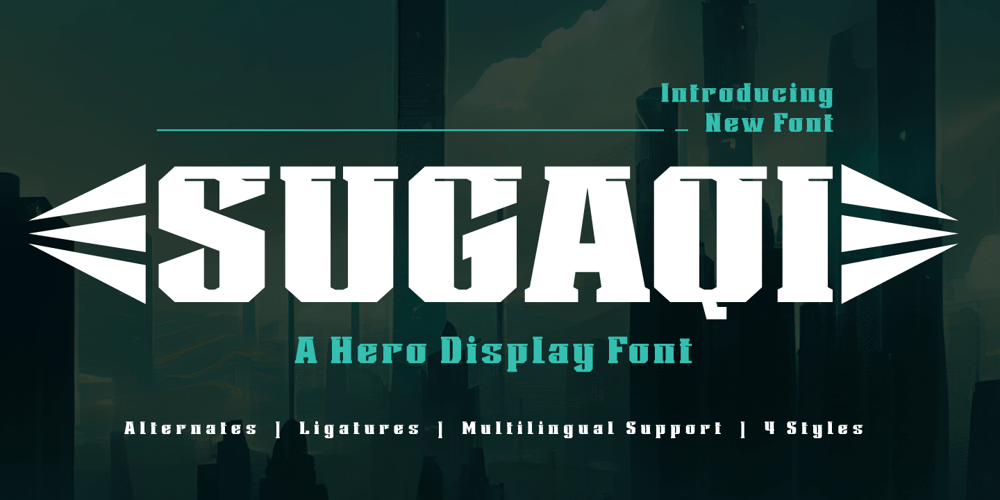
Sugaqi Font Family was designed by Rozikan and published by Twinletter. Sugaqi contains 4 styles and family package options. Sugaqi is a visual embodiment of courage in the form of a superhero display font. Tailor-made for projects that require a bold, bold, and punchy look like movies, games, or standout designs.What’s Included : File font All glyphs Iso Latin 1 Alternate, Ligature Simple installations PUA Encoded Characters – Fully accessible without additional design software. Fonts include Multilingual support